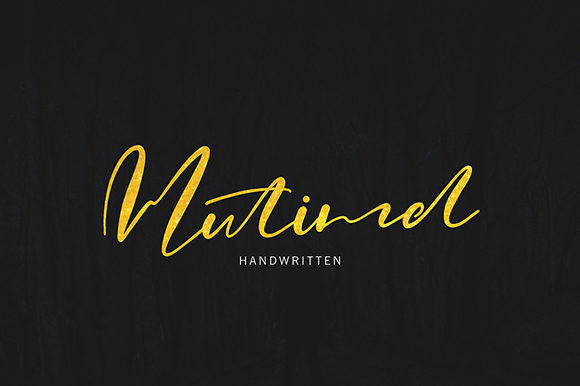
Introducing Mutimel Font: A Journey Through Elegance and Authenticity
In a world saturated with digital monotony, Mutimel Font emerges as a breath of fresh air, a testament to the enduring charm of handwritten artistry. Inspired by the graceful strokes of a calligrapher's pen, Mutimel captures the essence of authenticity, inviting you to add a personal touch to your creative projects.
Crafted with meticulous attention to detail, Mutimel exudes an air of sophistication and elegance. Its delicate curves and playful flourishes dance across the page, evoking a sense of nostalgia and timeless beauty. Whether you're designing wedding invitations, branding materials, or social media posts, Mutimel effortlessly elevates your designs, transforming them into works of art.
Embrace the allure of Mutimel's script family, a collection of fonts that cater to your every creative whim. From the whimsical charm of Mutimel Regular to the refined allure of Mutimel Bold, each font carries its own distinct personality, allowing you to tailor your designs to perfection. Experiment with different weights and styles, mix and match fonts to create unique typographic compositions, and let your creativity soar.
With Mutimel, you'll discover endless possibilities for self-expression. Whether you're a seasoned designer or just starting your creative journey, this font family will empower you to unleash your imagination and create designs that resonate with your audience.
Don't settle for ordinary fonts that blend into the background. Embrace the exceptional with Mutimel, and let your designs shine with a brilliance that captures hearts and minds. Experience the magic of Mutimel today and embark on a journey of creativity that will leave you breathless.